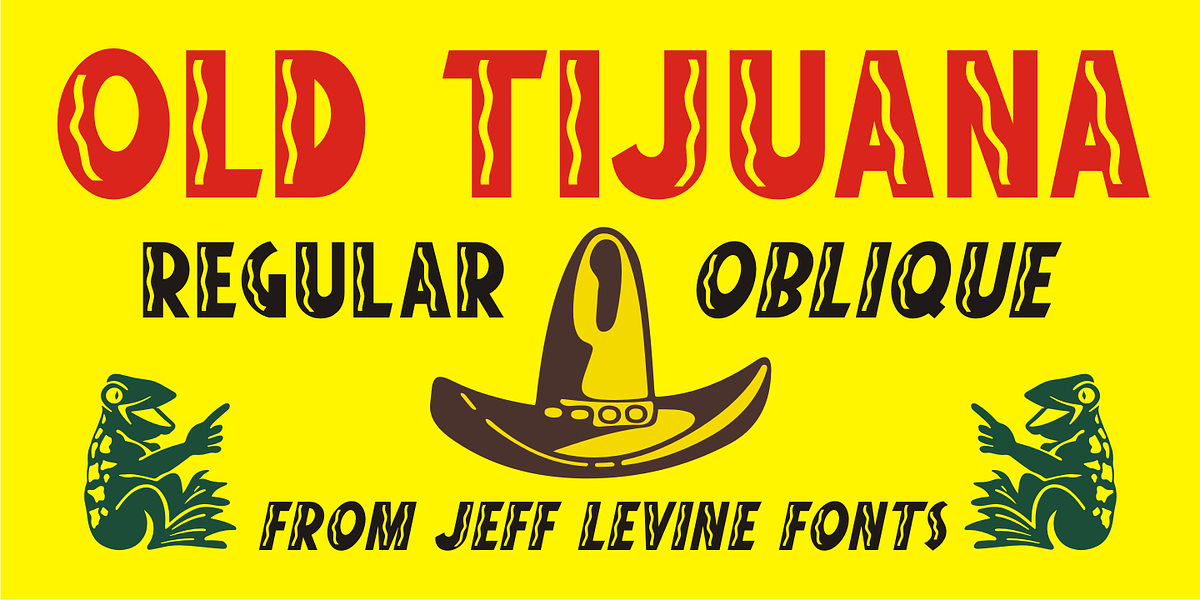
Old Tijuana JNL
Old Tijuana JNL was modeled from the hand lettered title on the cover of the 1939 sheet music for “Class Will Tell” and is available in both regular and oblique versions.
Casual, playful and reminiscent of the ‘serape’ style of pseudo-Mexican lettering found on ad designs of the 1930s and 1940s, the type face isn’t just for South of the Border themes.
Use it for any festive occasion and the design will blend in well.